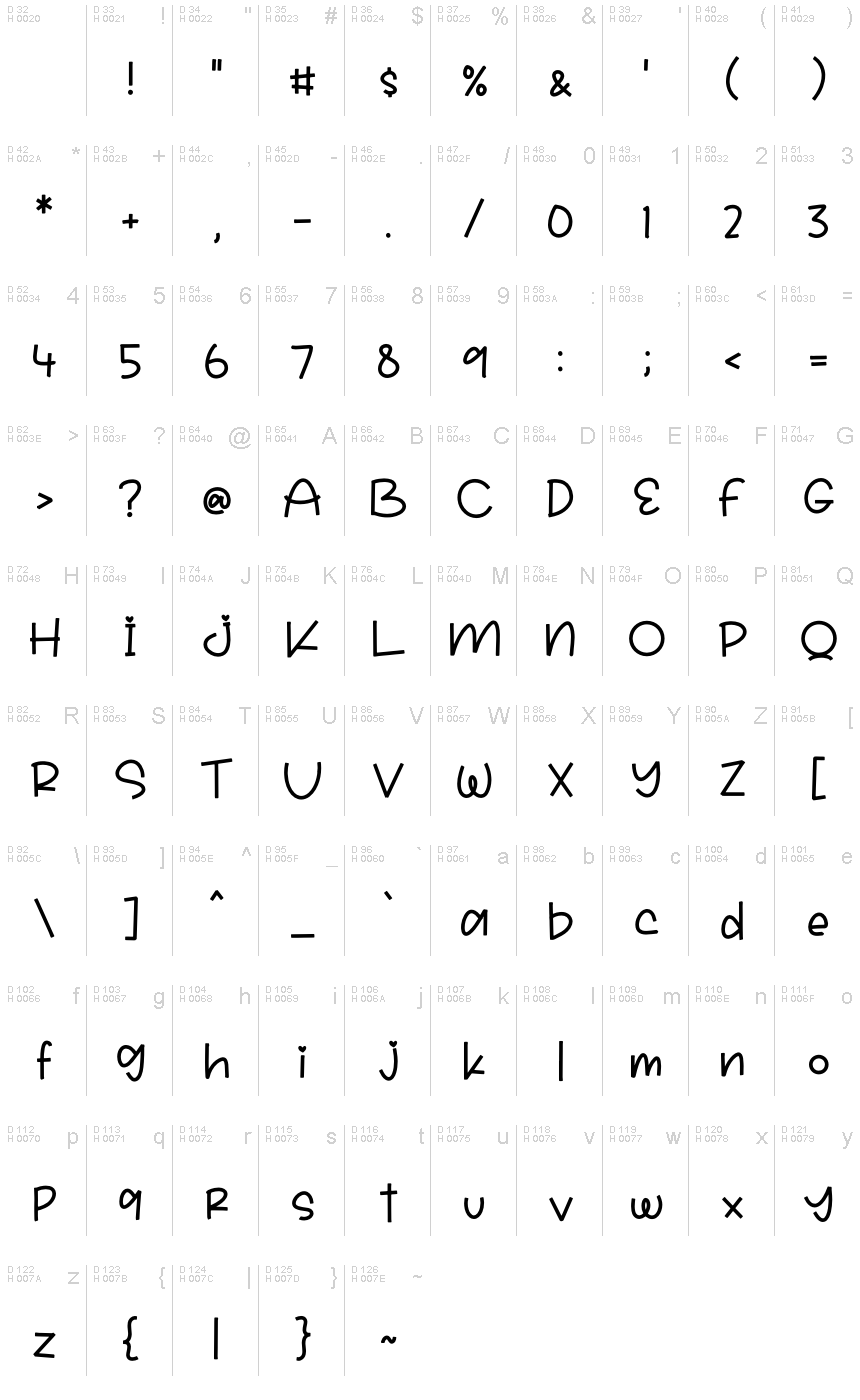
Sunflora
Sunflora, a creation by Perspectype Studio and hosted on Letterena.com, offers a refreshing handwritten aesthetic that brings personality to any project. With its semi-light weight, this font strikes an elegant balance between readability and artistic flair. The semi-expanded width enhances its presence without overwhelming the canvas, making it versatile for both digital and print mediums.
The Sunflora font carries a sense of casual sophistication that could effortlessly elevate branding materials, wedding invitations, or personalized stationery. Its distinct handwritten style is imbued with a personal touch that can connect with audiences on an intimate level. Whether used for logo design or as body text in creative compositions, Sunflora's charm lies in its ability to marry simplicity with character—a true hallmark of contemporary typography.